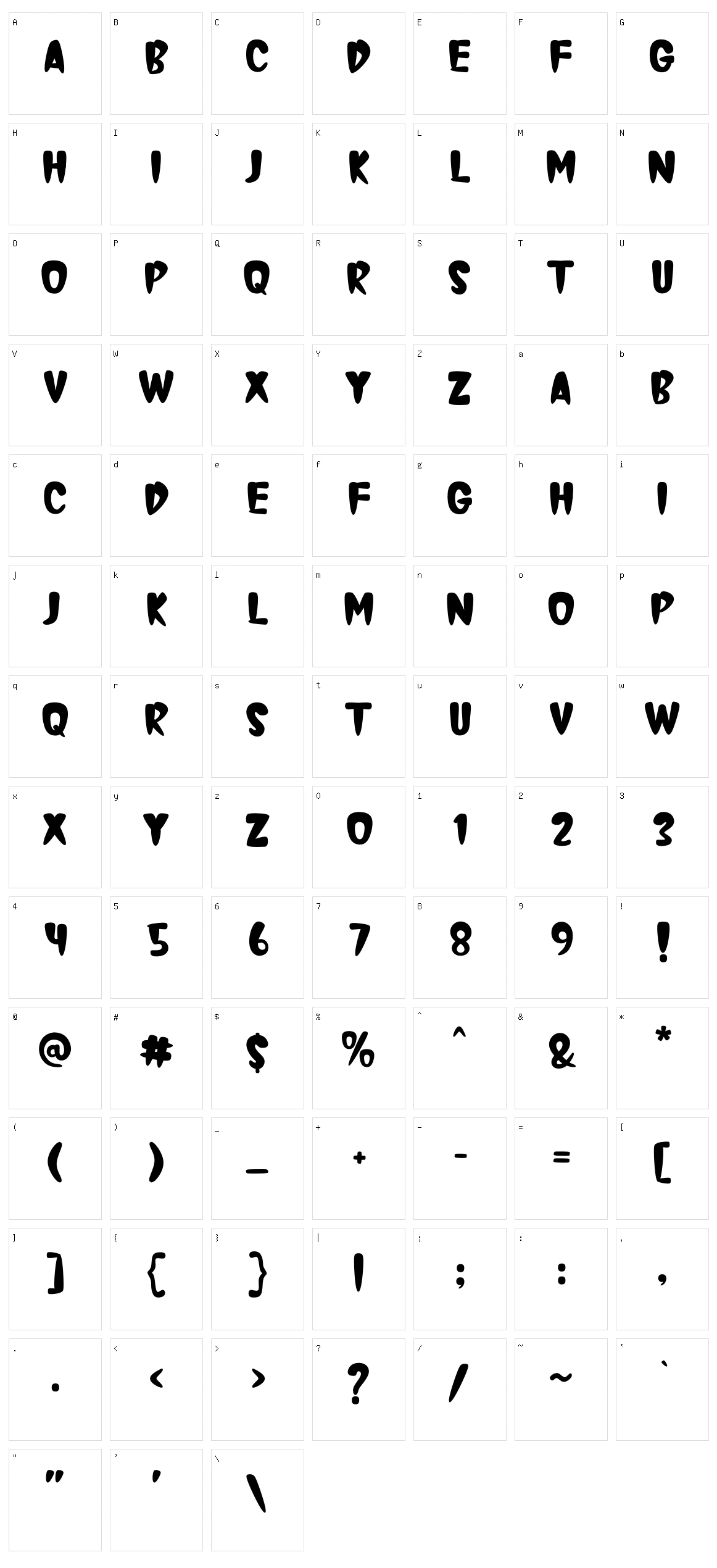
The free font Sometimes Error Happens is carefully designed by Kurnia Setyadi, showcasing a thoughtful balance of creativity and usability and falls under the Cartoon font style. When you download the ZIP file, it contains only 18.91 KB of font files, making it lightweight and quick to download. Please review the license details below to understand permitted usage and distribution rights. If license information is not available, we recommend using this font for personal projects only or contacting the author directly for commercial usage permissions.